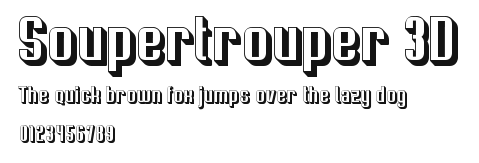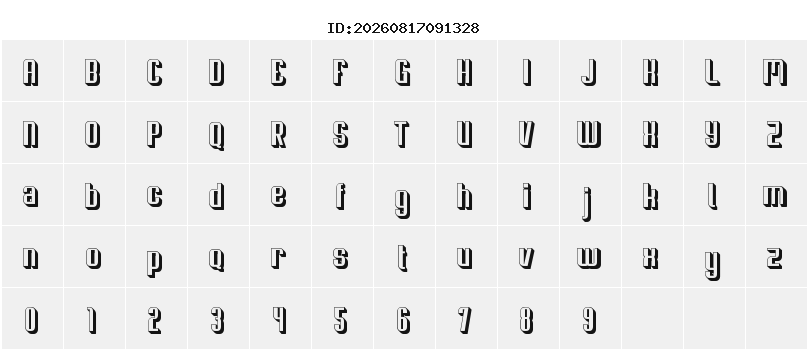
Soupertrouper 3D Preview
• Font Name: Soupertrouper 3D
About Soupertrouper 3D.ttf
Soupertrouper 3D.ttf is a modern, elegant sans-serif font designed for ultimate readability and visual harmony. Perfect for branding, headlines, web design, and print materials.